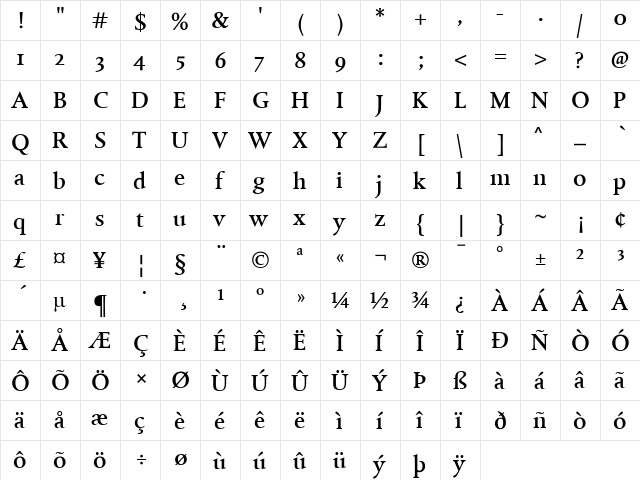
DTLAlbertinaST Medium
Design Context for DTLAlbertinaST Typeface
DTLAlbertinaST is a composed and adaptable typeface that performs quietly and consistently across a wide range of design contexts.